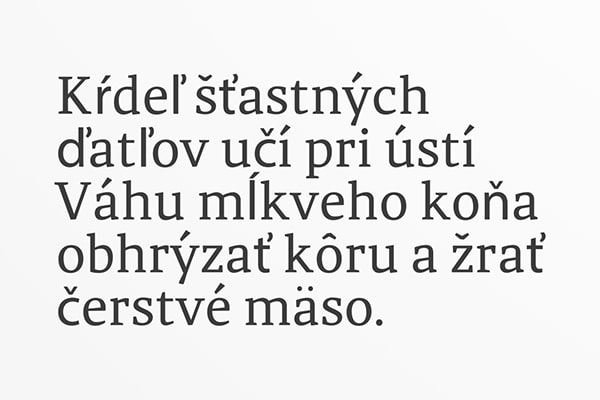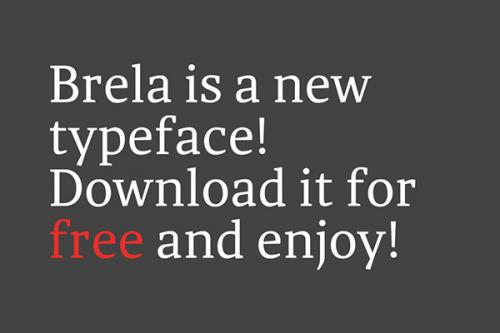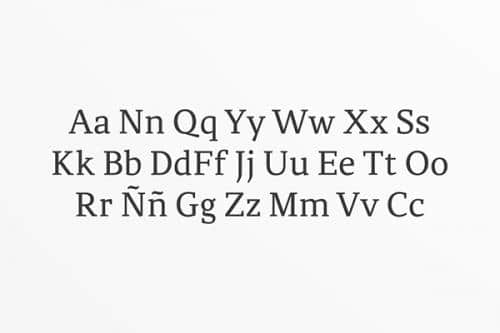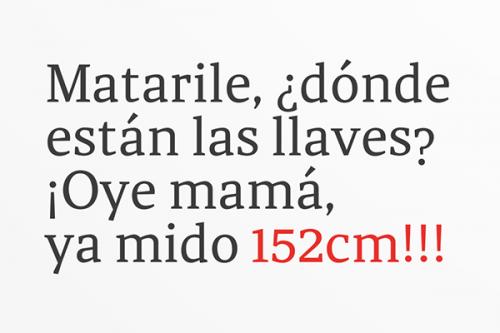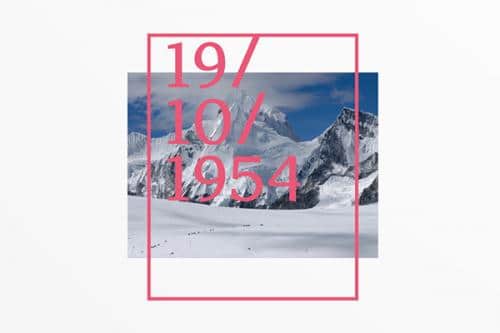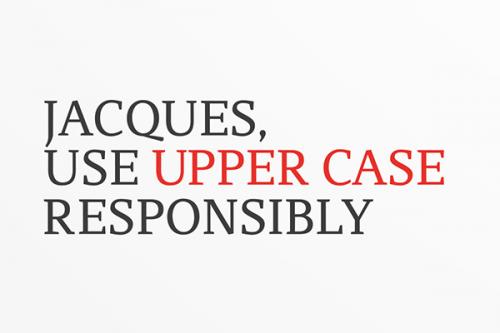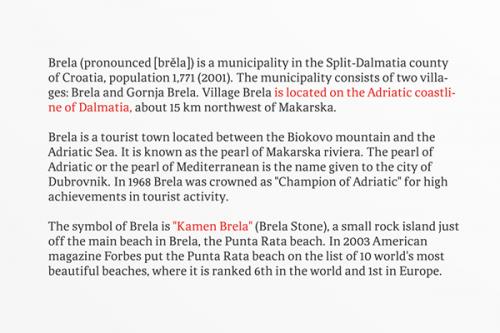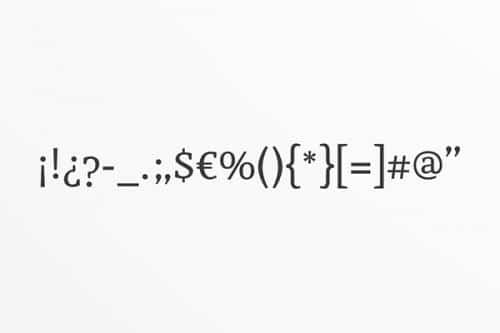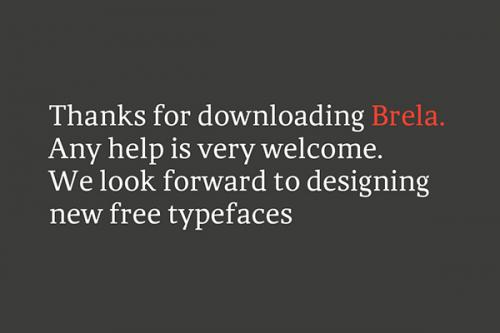
I’m happy to introduce you to a high quality free font. Introducing Brela Typeface! Brela designed and shared by Makarska Estudio, a designer comes from Santa Cruz de Tenerife, Spain.
Brela Regular is a serif typeface specially designed for editorial design. Free download, has low box, high box, main spelling and numerals. Light and Bold styles are currently under development